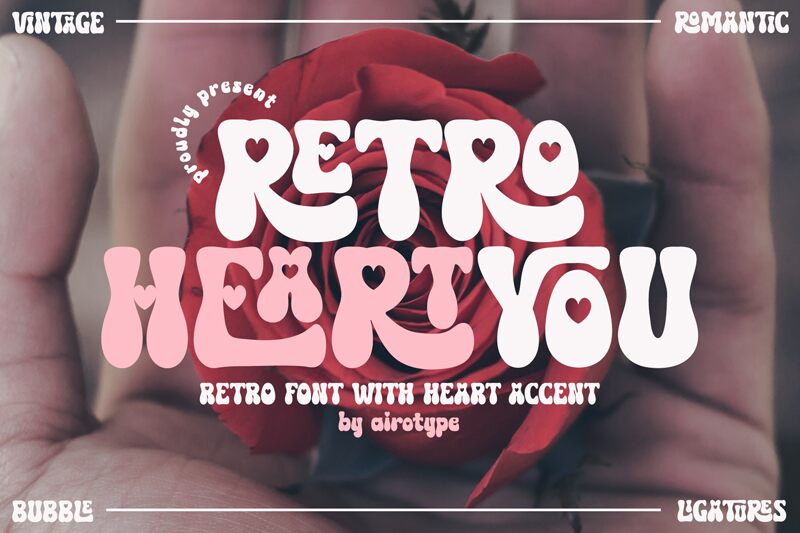
Retro Heart You
Retro Heart You font by Airotype is a free retro valentine holiday typeface with big, squishy letters and playful heart cutouts that feel straight out of a ’70s love poster. The chunky, inky forms and tight rhythm make words look like they’ve been hand-poured in chocolate, giving any headline instant romance and nostalgia without feeling cheesy. It’s bold enough to stand on its own, so a few words go a long way.
Using Retro Heart You font, you can craft Valentine’s cards, party invitations, social media graphics, gift tags, stickers, and candy or candle packaging that shout “love” at first glance. This free font shines in large sizes where its bubbly shapes and heart details can really pop. Pair it with a clean sans serif in small text, and let Retro Heart You handle the declarations, titles, and big, swoony phrases.